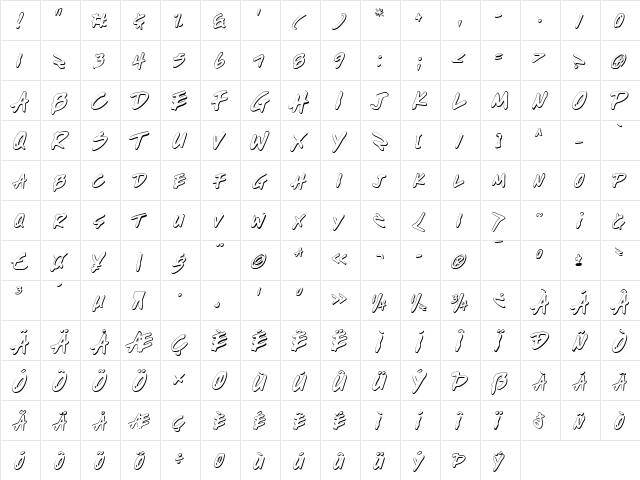
Write Off Outline Outline
Design Context for Write Off Outline Typeface
Write Off Outline brings ornamental detail and strong personality to headlines and identities, where visual impact matters more than quiet functionality.
Font Pairing: Pair with a clean neutral sans-serif for body copy to let Write Off Outline's character lead without overwhelming the composition.
Pro Tip: Use Write Off Outline exclusively at display sizes — it was designed to be seen, not read at length. Let a neutral companion handle body copy.